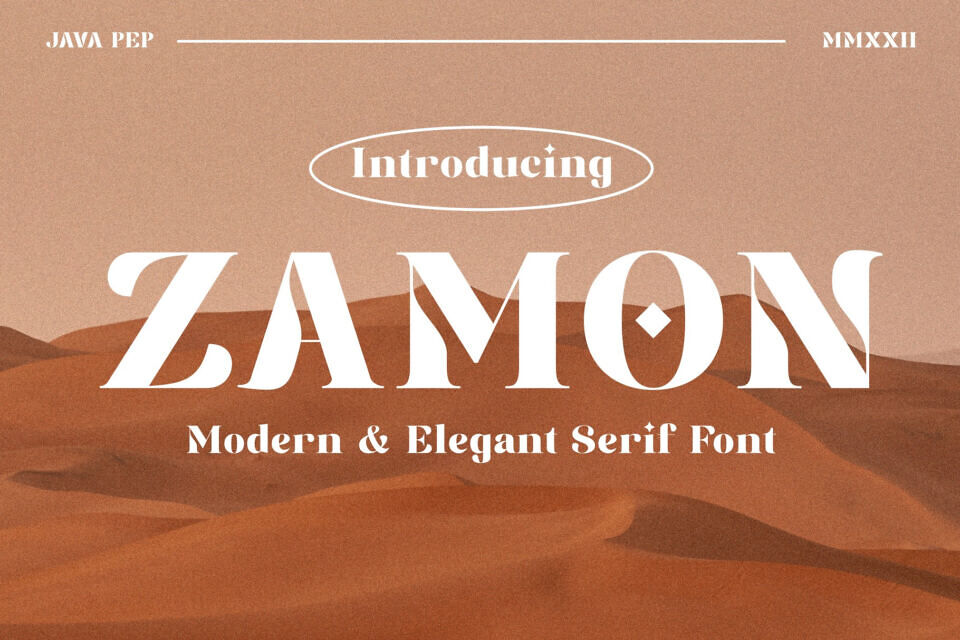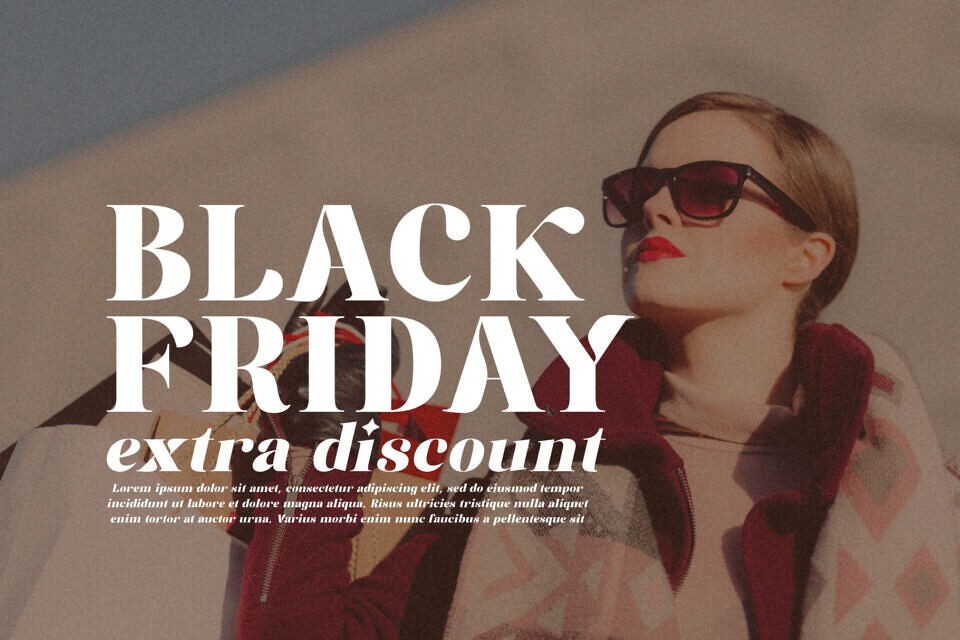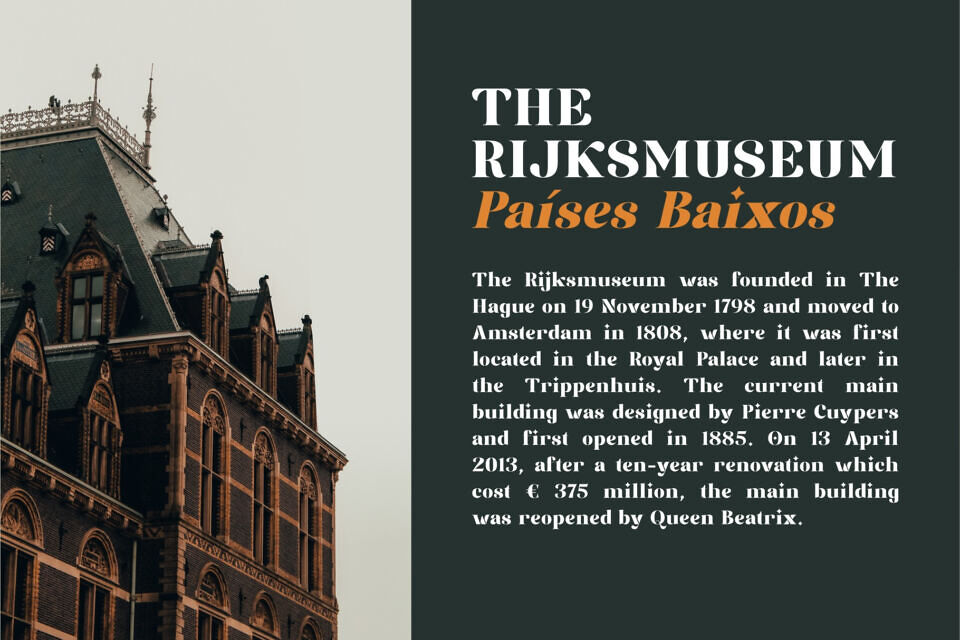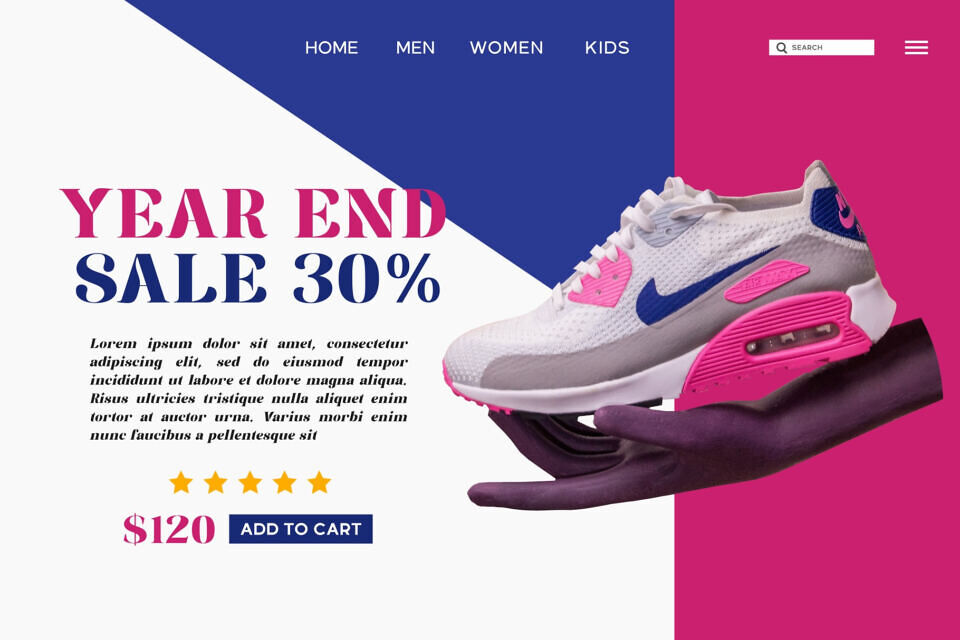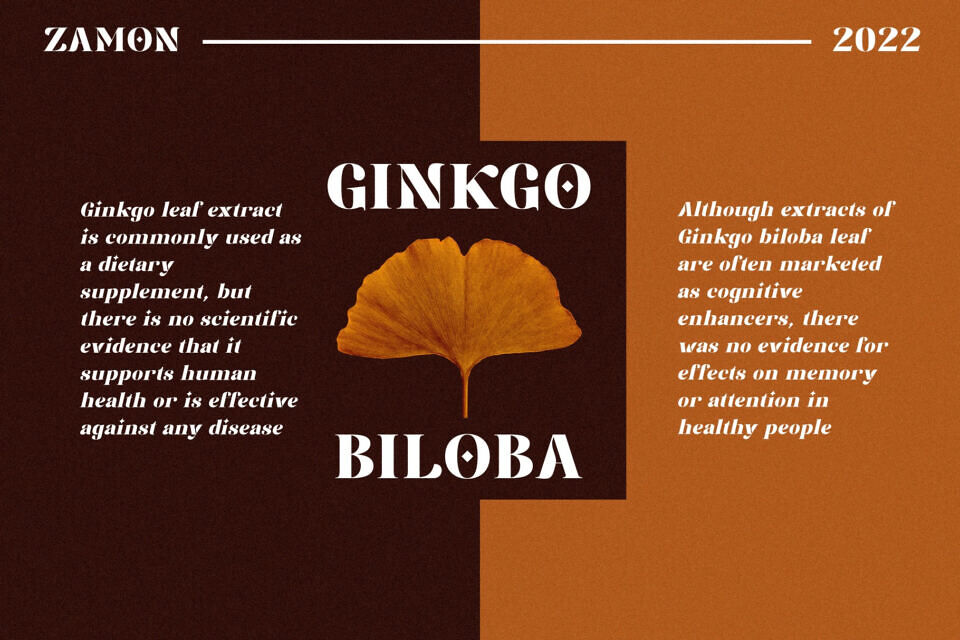
Zamon Font
Introducing Zamon, a sleek modern serif font. Its elegant design makes it ideal for headlines, titles, logos, and fashion-related text, as well as quotes and publishing materials.